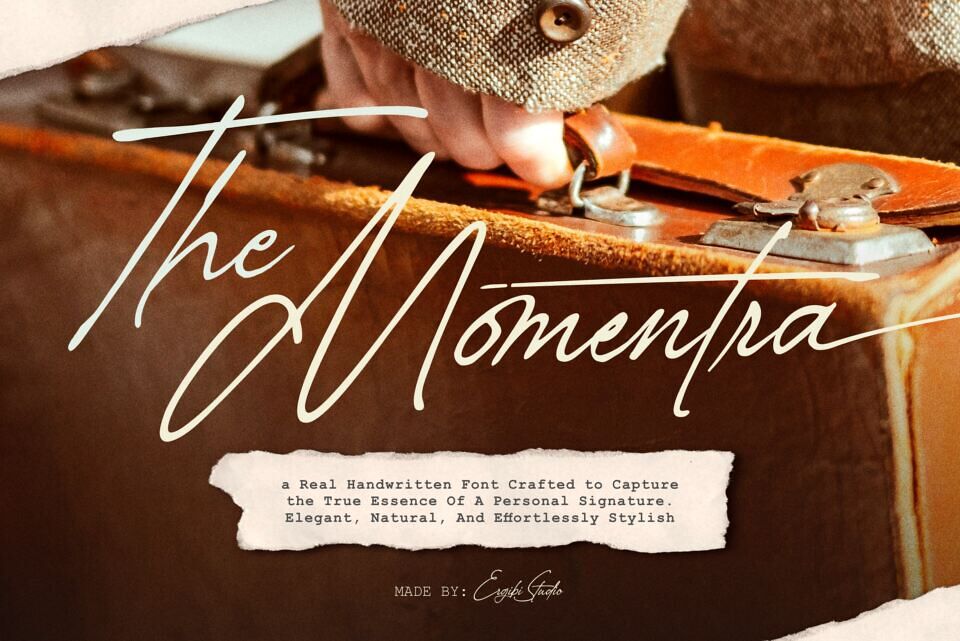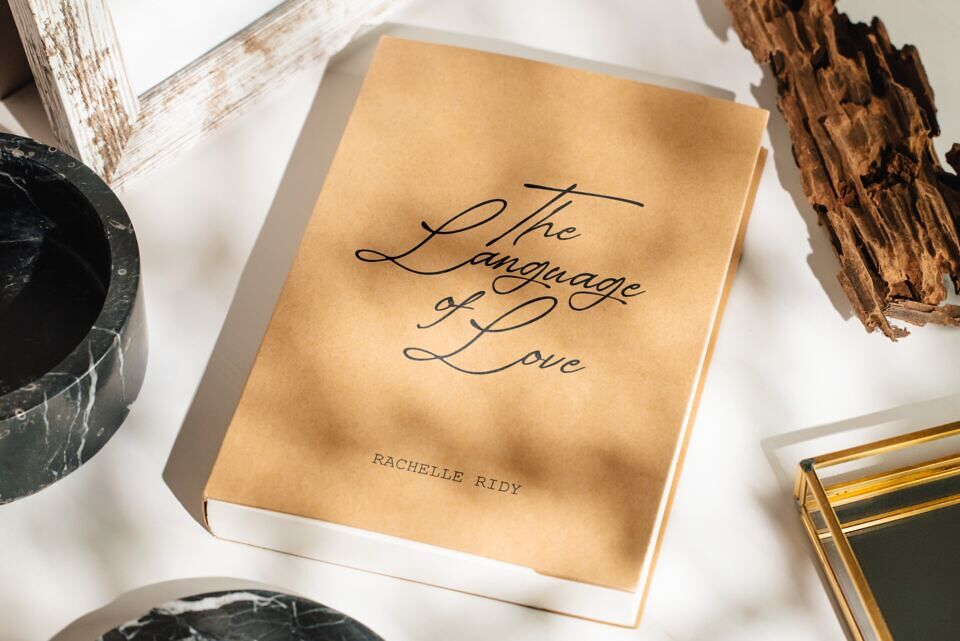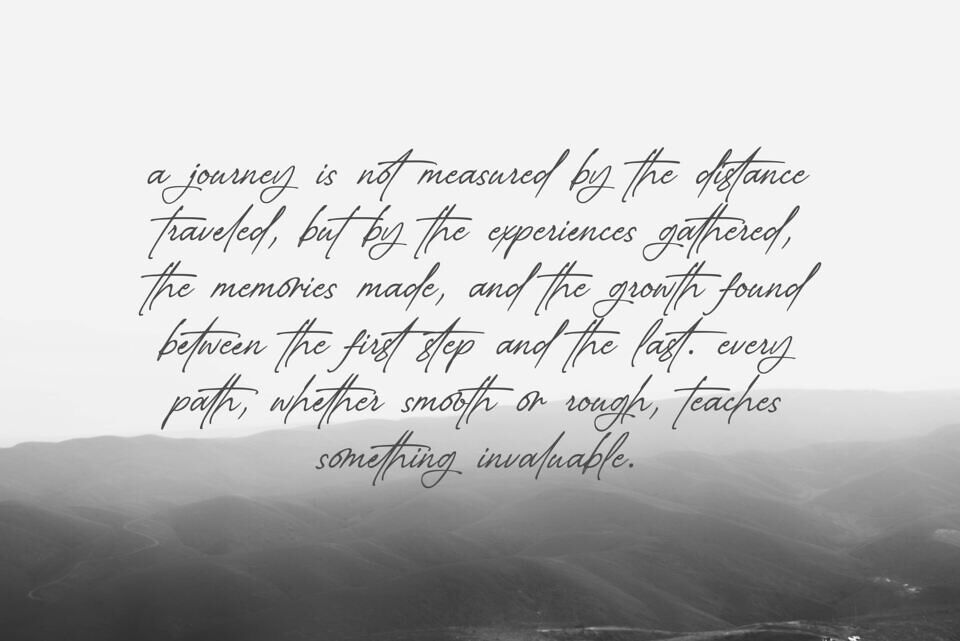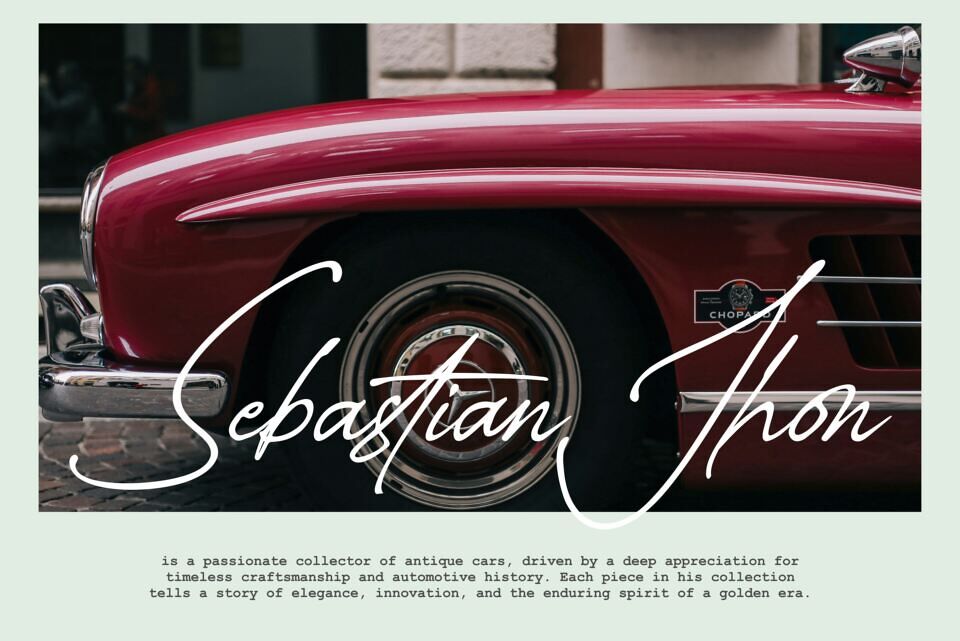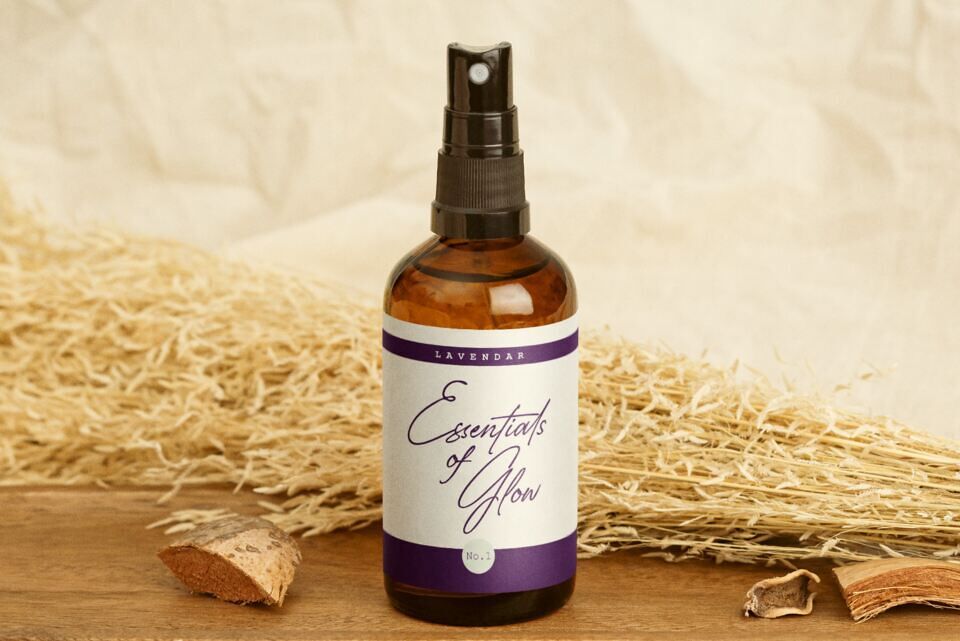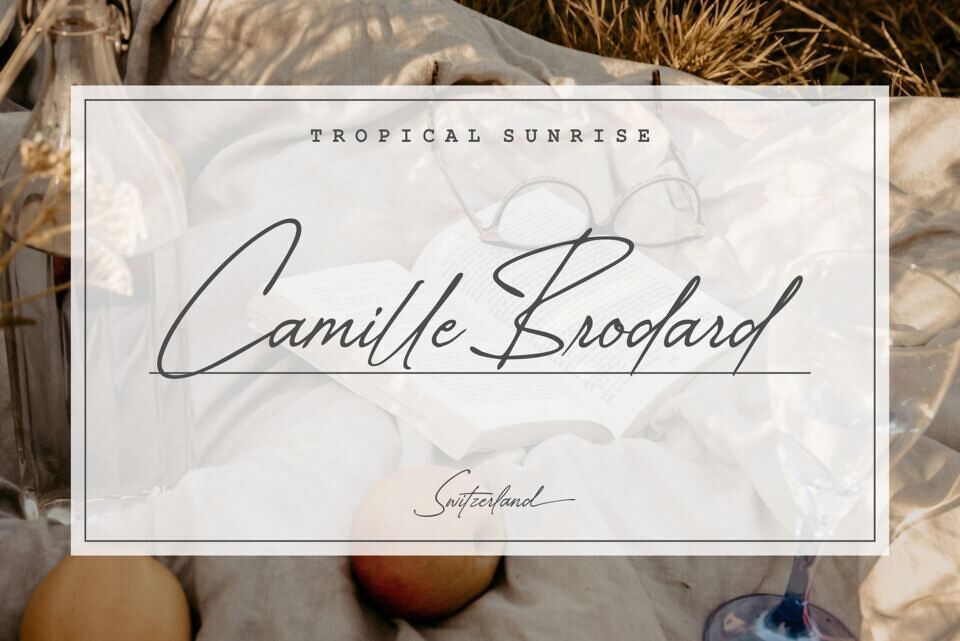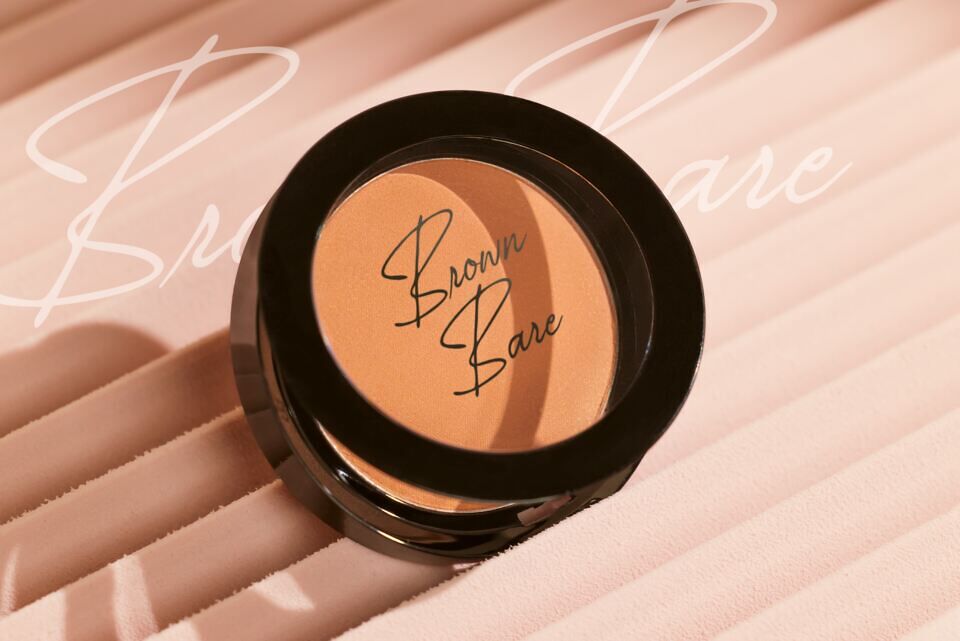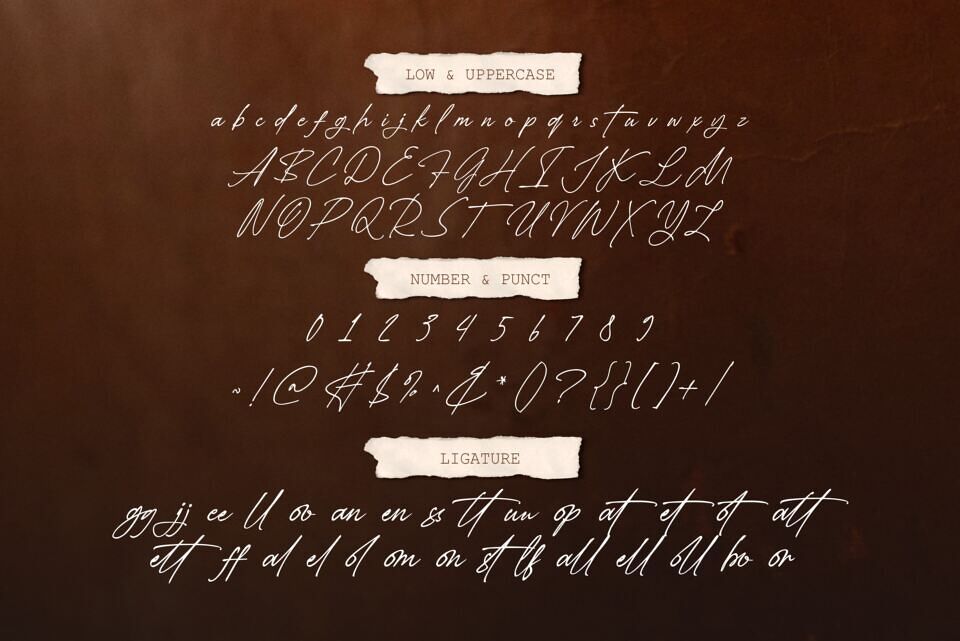
Momentra is a Real handwritten Font Crafted to Capture The True Essence Of A Personal Signature. Elegant, Natural, And Effortlessly stylish. Perfect for branding, invitations, logos, and editorial designs, this font brings a touch of authenticity and sophistication to any project.
With smooth curves, delicate strokes, and a timeless charm, it adds personality and warmth wherever it’s used.